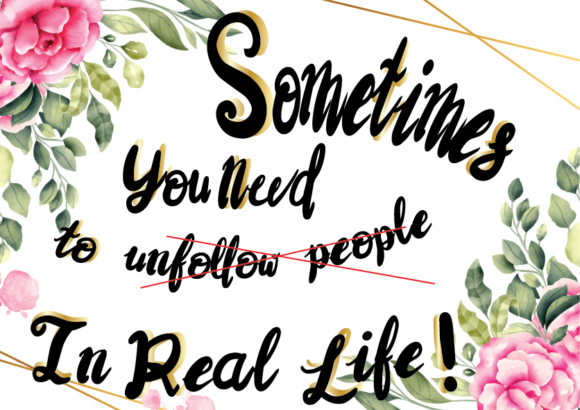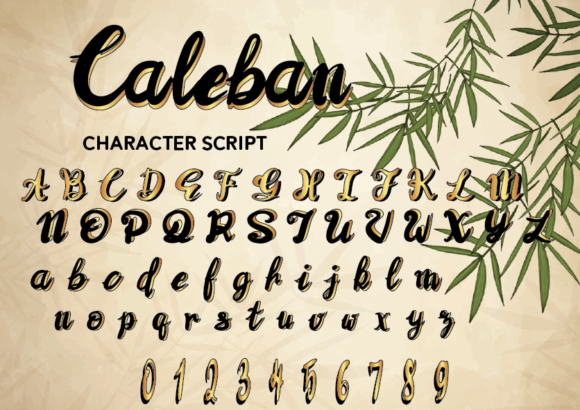
Caleban Font: The Ultimate Choice for Creative Projects
Are you a designer, crafter, or DIY enthusiast looking for a font that can add a personal touch to your creative projects? Look no further than Caleban Font! This cute and casual handwritten font is designed to bring a friendly feel to any design, making it perfect for a wide range of applications.
What is Caleban Font?
Caleban Font is a beautifully crafted handwritten font that exudes warmth and friendliness. Its casual and approachable style makes it an ideal choice for designers and crafters who want to add a personal touch to their work. Whether you’re creating social media graphics, crafting DIY projects, or designing calligraphy scripts, Caleban Font is the perfect choice.
Key Features of Caleban Font
- Cute and Casual Design: Caleban Font features a playful and informal design that’s perfect for creating friendly and approachable graphics.
- Incredibly Friendly Feel: The font’s warm and inviting style makes it perfect for designs that require a personal touch.
- Versatile: Caleban Font can be used for a wide range of applications, from social media graphics to calligraphy scripts and DIY projects.
- Easy to Read: The font’s clear and legible design makes it easy to read, even at small sizes.
Uses of Caleban Font
Caleban Font is a versatile font that can be used for a variety of creative projects. Here are some ideas to get you started:
- Instagram Graphics: Add a personal touch to your Instagram graphics with Caleban Font. Use it to create eye-catching captions, quotes, and stories.
- Calligraphy Scripts: Caleban Font is perfect for creating beautiful calligraphy scripts for DIY projects, such as wedding invitations, greeting cards, and gift tags.
- DIY Projects: Use Caleban Font to add a personal touch to your DIY projects, such as crafts, scrapbooking, and journaling.
- Branding and Marketing: Caleban Font can also be used for branding and marketing materials, such as logos, brochures, and business cards.
Why Choose Caleban Font?
So why choose Caleban Font for your creative projects? Here are just a few reasons:
- Unique and Creative: Caleban Font offers a unique and creative way to express yourself through your designs.
- High-Quality Design: Caleban Font features a high-quality design that’s perfect for printing and digital applications.
Tips for Using Caleban Font
Here are a few tips for using Caleban Font in your creative projects:
- Experiment with Colors: Caleban Font looks great in a variety of colors, so don’t be afraid to experiment and find the perfect color scheme for your design.
- Mix and Match: Try mixing and matching Caleban Font with other fonts to create a unique and creative look.
- Keep it Simple: Don’t overcomplicate your design. Keep it simple and let Caleban Font do the talking.
| Font Name | Caleban Font |
| Author | Atta Design |
Caleban Font is a versatile and creative font that’s perfect for designers, crafters, and DIY enthusiasts. Its cute and casual design makes it an ideal choice for a wide range of applications, from social media graphics to calligraphy scripts and DIY projects. With its easy-to-use design and high-quality construction, Caleban Font is sure to become a favorite in your creative toolkit.